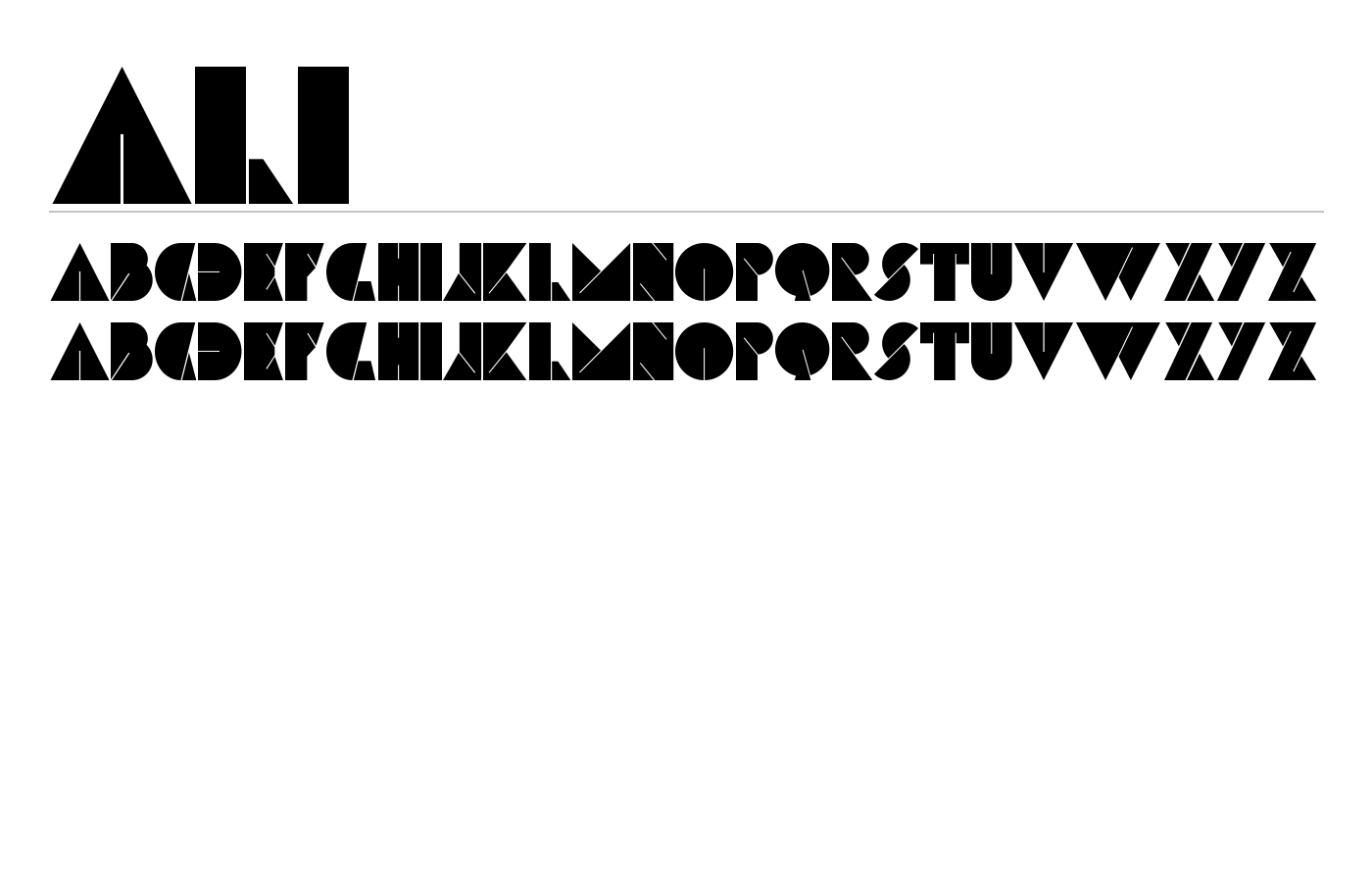
Ali Font is a bold, geometric sans serif typeface with a strong, striking presence created through solid black shapes and sharp angles. Its unique cut-out segments and symmetrical forms give it a modern, artistic feel that works exceptionally well for eye-catching headlines, logos, and poster designs where a bold, avant-garde style is desired. This font is perfect for brands and projects seeking a contemporary, edgy look that stands out with high visual impact.
| Font family | Ali Font |
| Designer | Dan MacDonald |